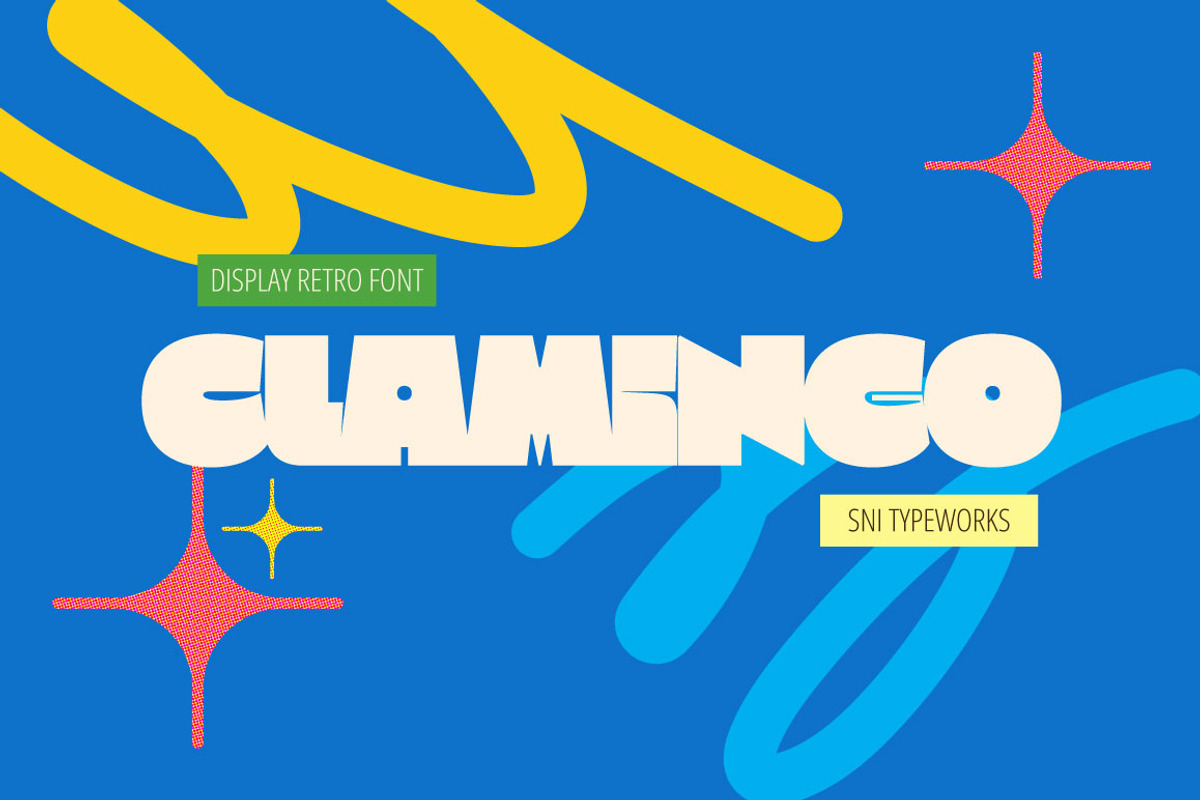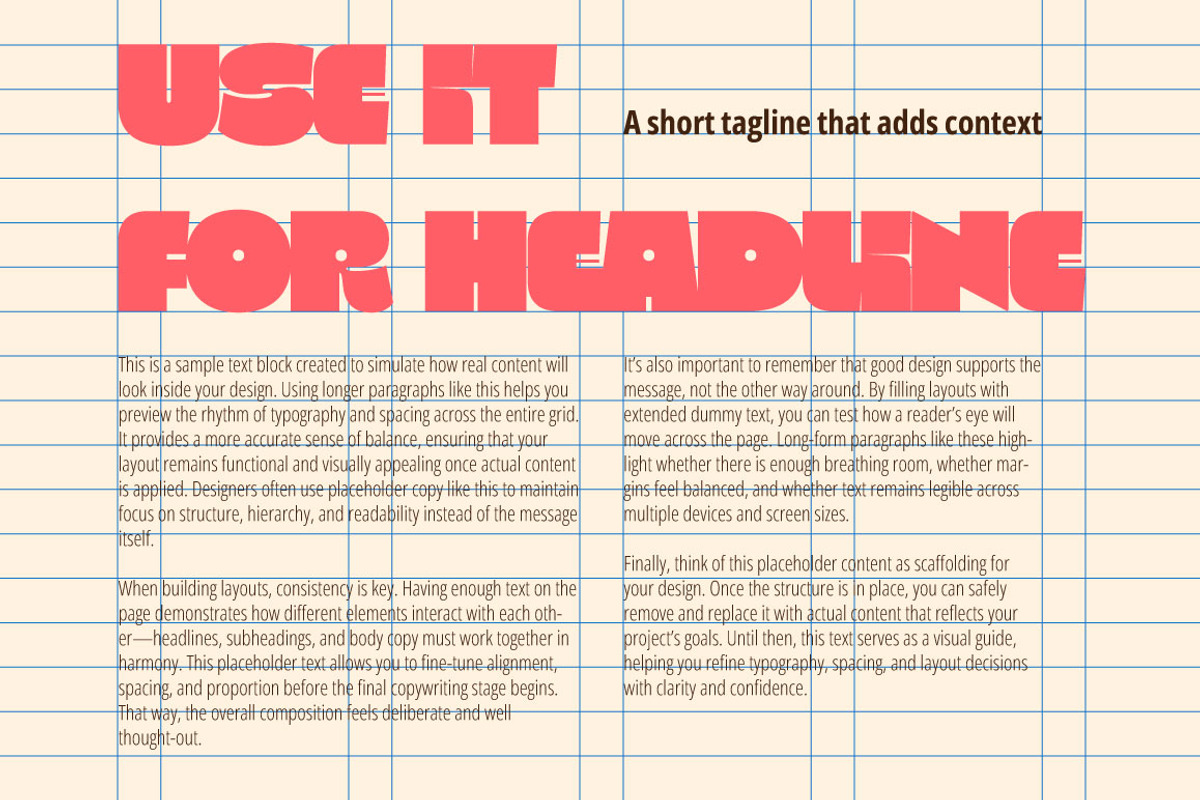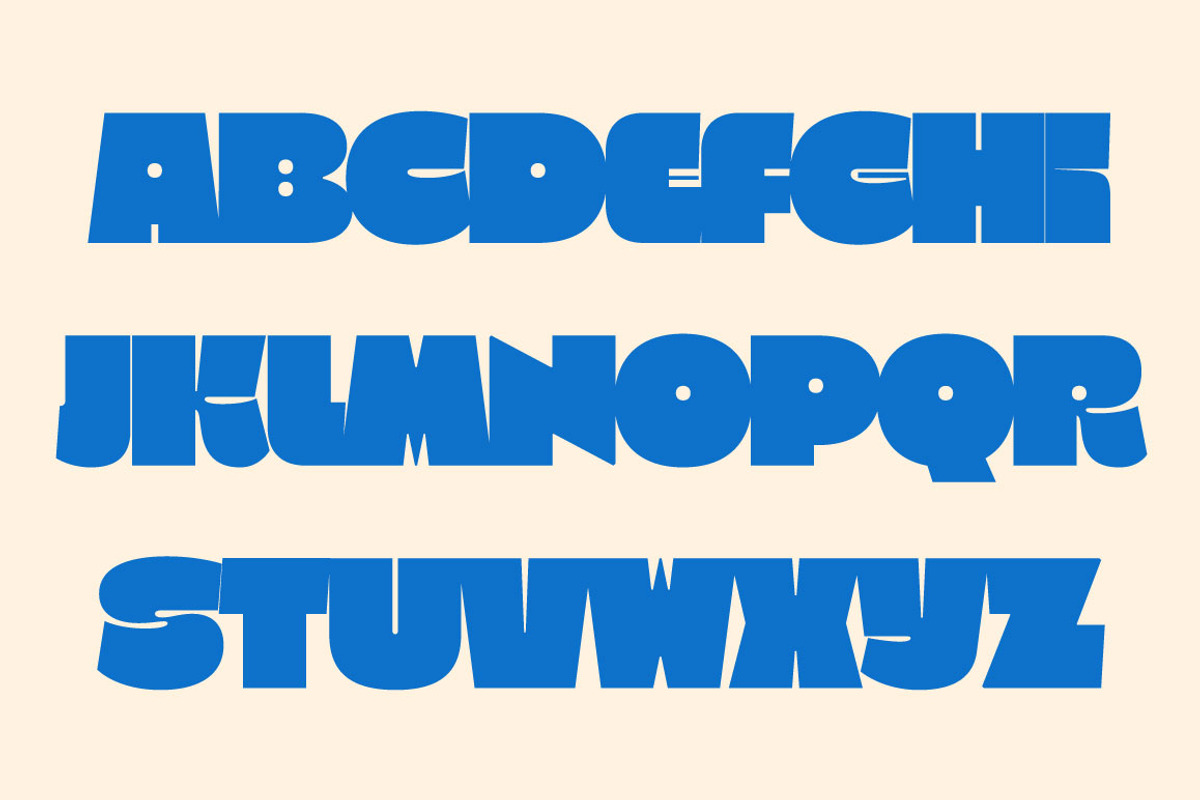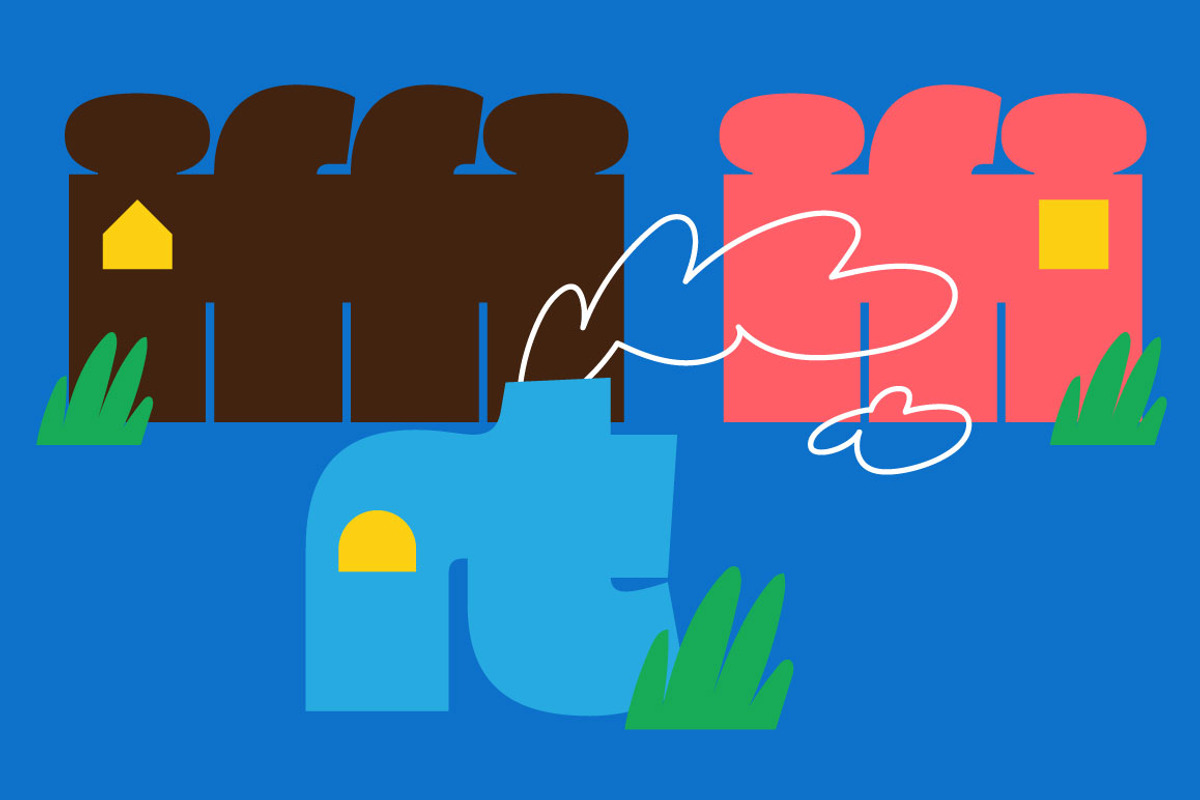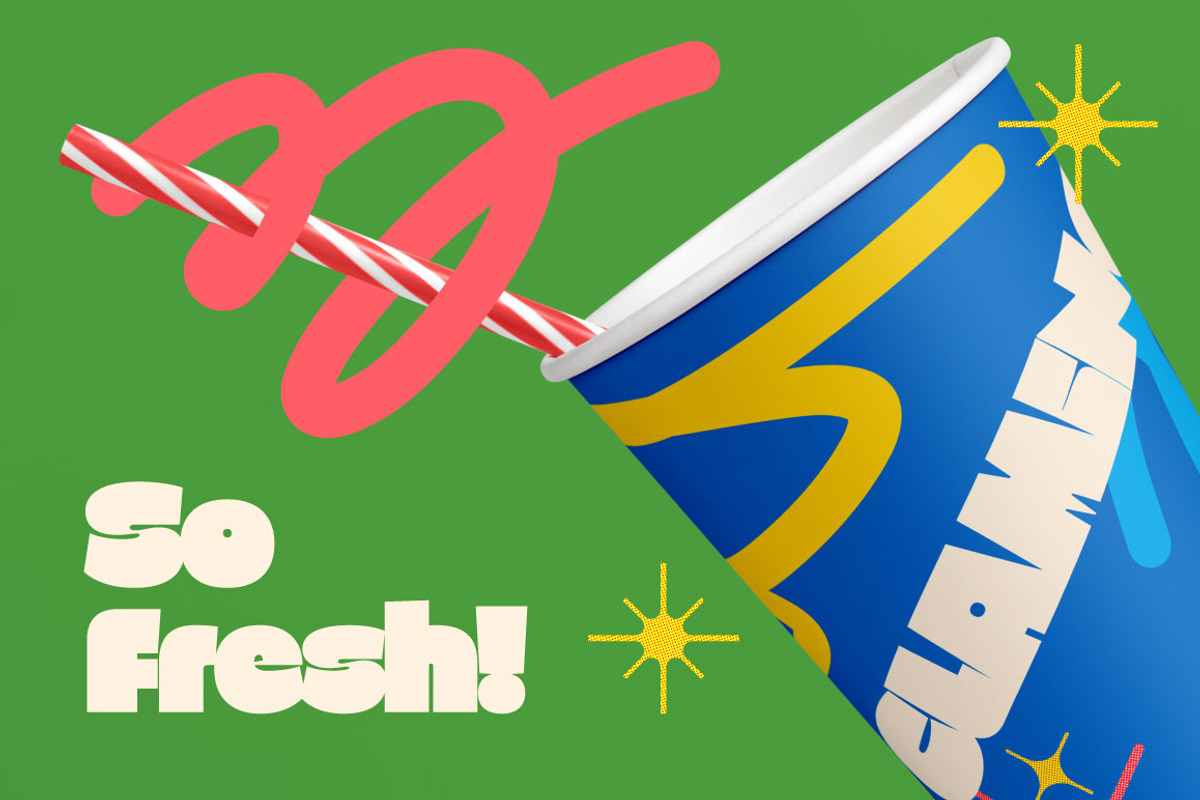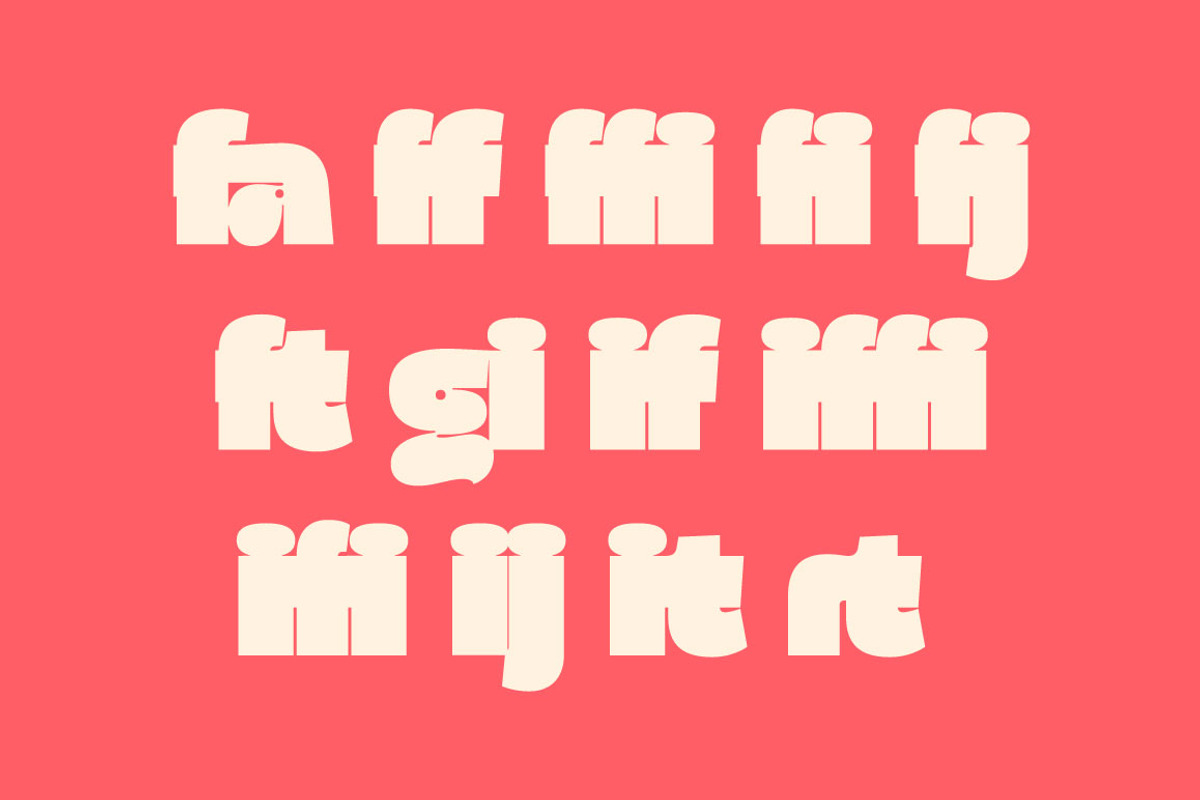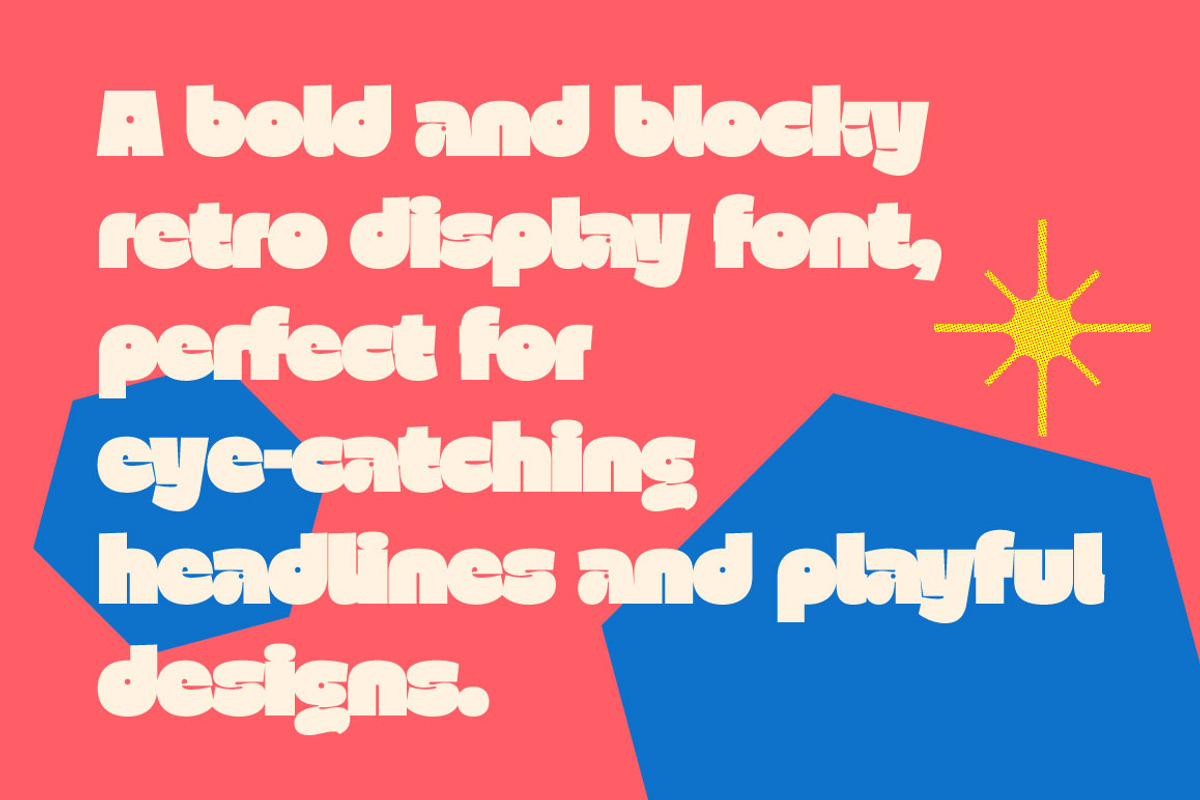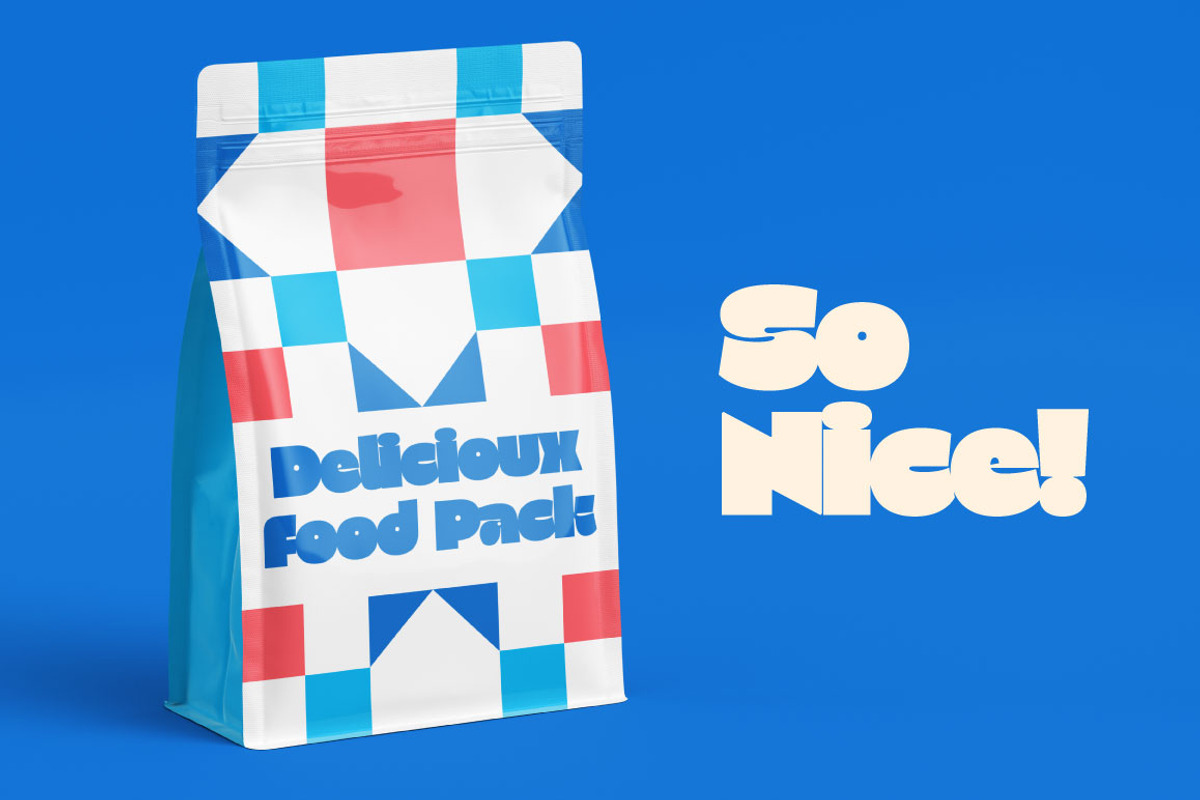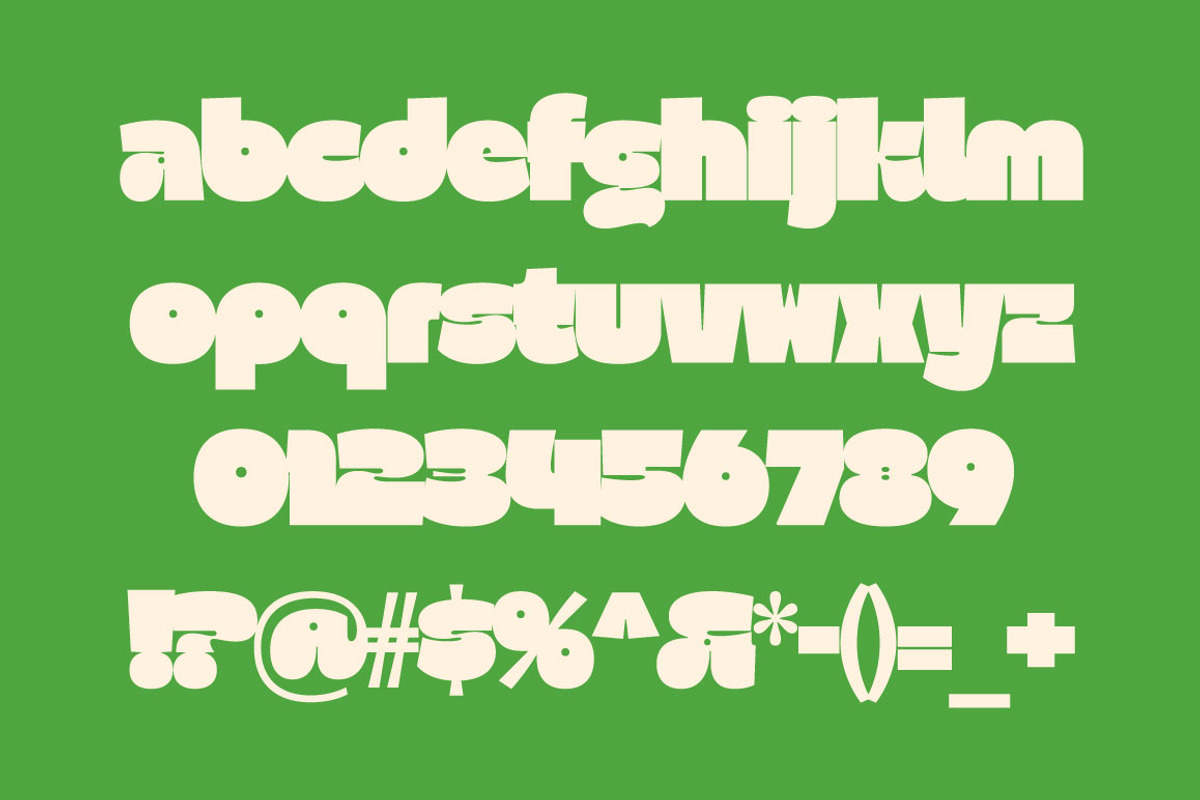
Clamingo – Bold Retro Display Font
Clamingo is a bold and playful display font inspired by the timeless spirit of Bauhaus design. Its chunky, geometric letterforms bring a sense of fun while still carrying the clean structure of modernist typography. Designed to grab attention, Clamingo makes every word feel lively and full of character.
Use it for headlines, posters, logos, or any creative project where you want to add energy and style. Whether you’re going for a retro-inspired look or simply want something bold and cheerful, Clamingo is here to make your design stand out. Pair it with minimalist sans serifs for balance, or let it shine on its own as the star of your layout.